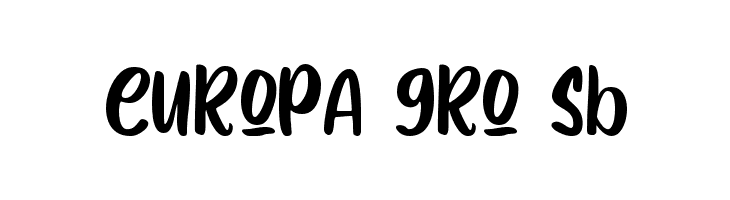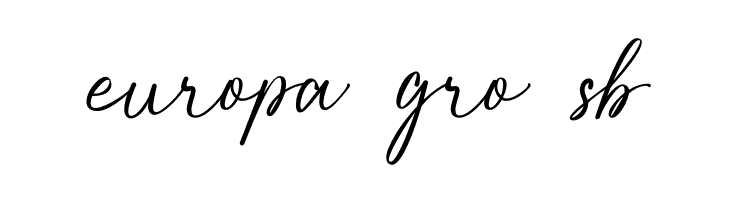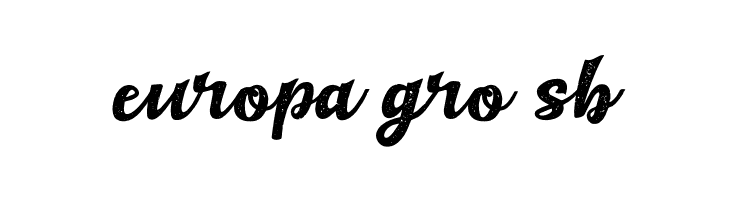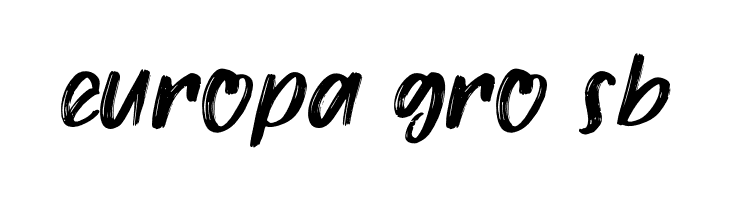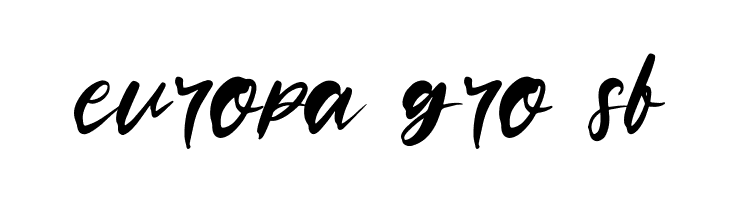
A bold, playful handwritten font with smooth curves and consistent strokes.
A cursive, handwritten-style font with elegant, flowing letters.
A bold, textured script font with a vintage yet modern appeal.
A bold, brush script font with expressive, hand-painted strokes.
A dynamic, expressive handwritten font with fluid, continuous strokes.
A bold, expressive script font with dynamic strokes and elegant curves.
A bold, dynamic brush script font with expressive strokes and a hand-painted look.
A bold, distressed font with a spooky, textured appearance.
A bold, brush-style script with a distressed texture and dynamic strokes.
A bold, energetic script font with fluid, dynamic strokes and a casual, handwritten feel.